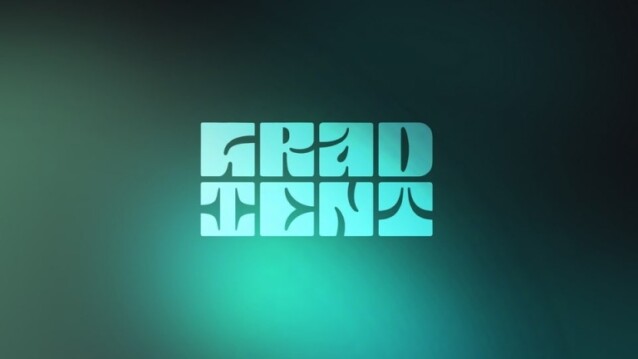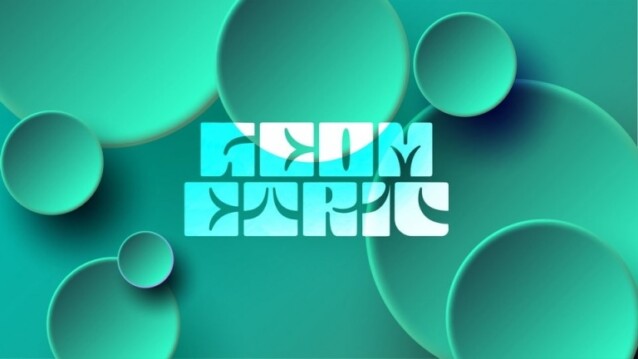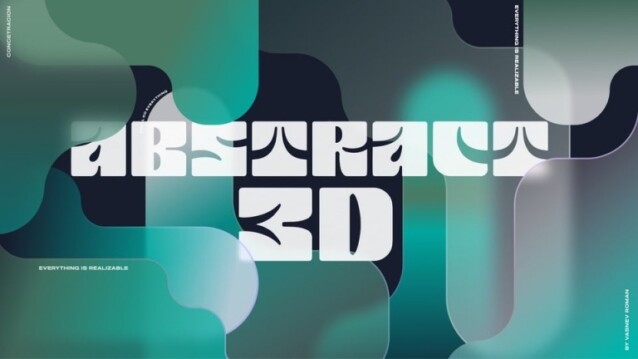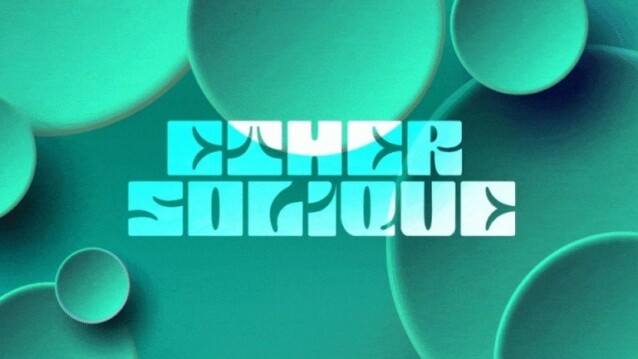
Ether Solique Font – This is a writing style that might suit what you need, strong and bold, psychedelic style. A futuristic, universally appealing font name that embodies trendiness, accessibility, and imaginative design. Unveil a world of modern, introspective artistry – a canvas for emerging designers seeking to push boundaries.